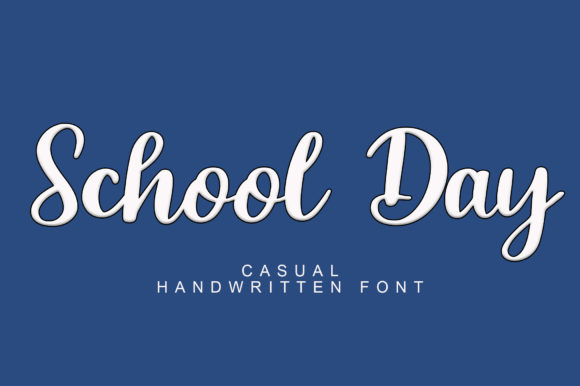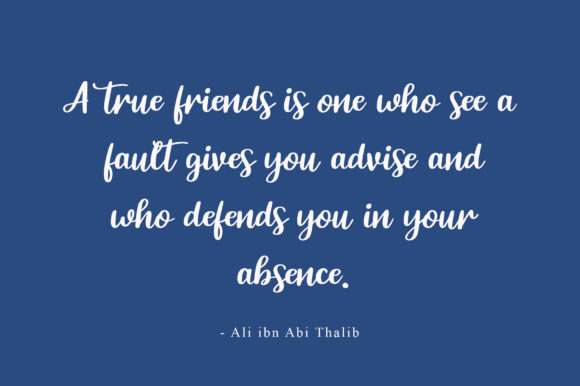
About School Day Font
School Day is a chic, refined script font that emanates sophistication and elegance. Its stylish alternates and ligatures make this font the perfect match for any project.